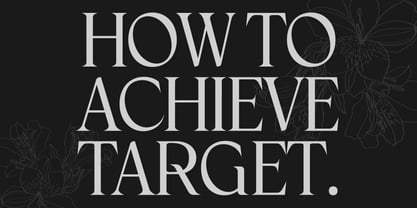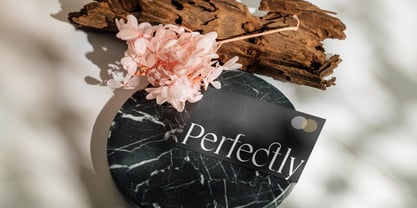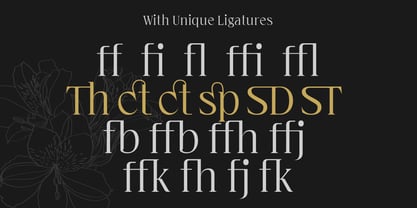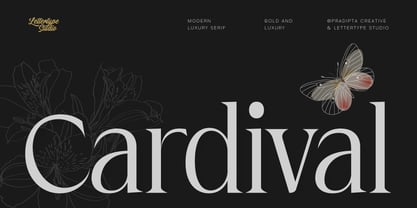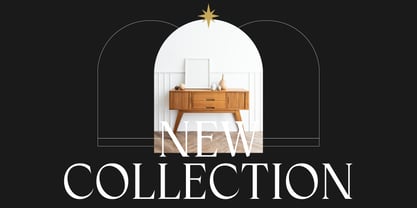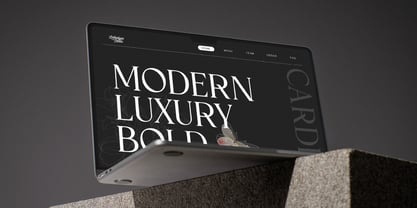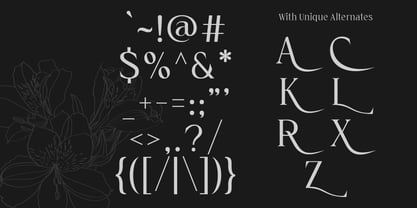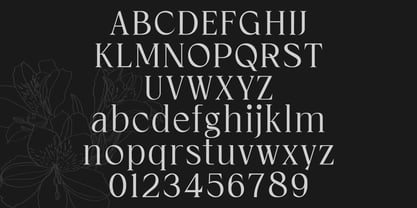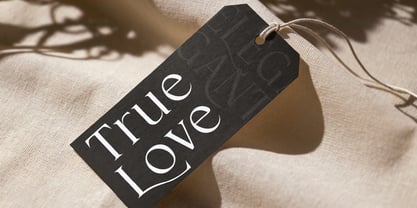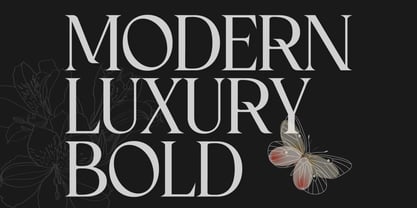
Cardival
von Lettertype Studio
Die Schriftfamilie Cardival wurde von Diki Pradipta Tri Atmojo entworfen und von Lettertype Studio veröffentlicht. Cardival enthält 2 Stile und Familienpaketoptionen. Mehr über diese Familie
Cardival Modern Luxury Bold is a striking serif font that combines boldness with modern luxury. Designed with clean lines, sharp contrasts, and elegant curves, it’s perfect for branding projects that demand sophistication and class. Ideal for high-end brands, fashion lines, editorial headlines, and any design that needs a touch of elegance. This typeface speaks to those who appreciate modern, luxurious aesthetics and want to stand out with a strong, bold statement.
Cardival Modern Luxury Bold is the ultimate font for brands and projects looking to convey a sense of prestige and contemporary style. With its sharp, modern feel, this luxury serif font works flawlessly in logos, magazine layouts, advertisements, and premium packaging. Featuring impeccable readability and a touch of timeless elegance, Cardival brings sophistication to modern design. This font is a must-have for designers seeking to elevate their branding and make a lasting impression.
Designer: Diki Pradipta Tri Atmojo
Foundry: Lettertype Studio